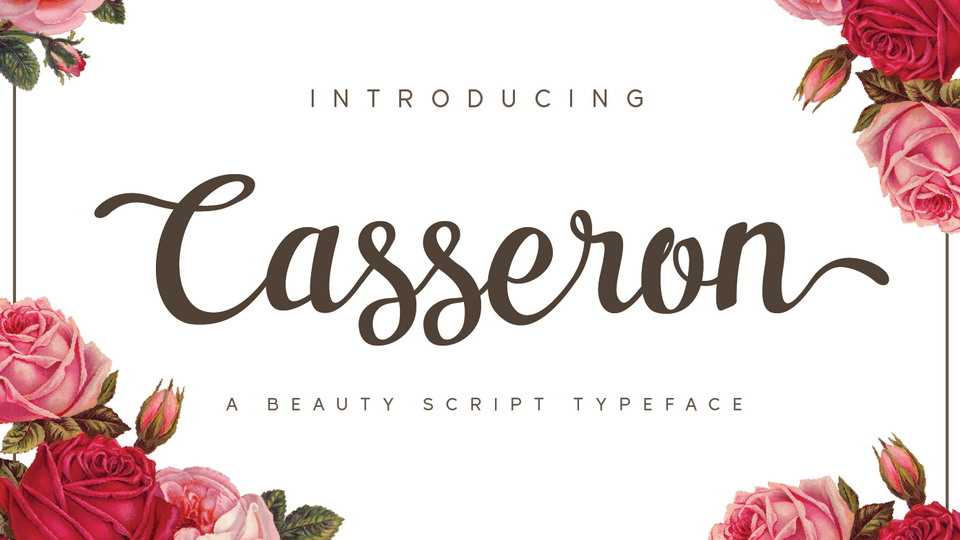
Download Casseron Script, a beauty script typeface with adorable cursive alternative glyphs. Casseron Script is perfect for branding projects, logo, wedding invitation, social media posts and any projects that need handwriting taste.